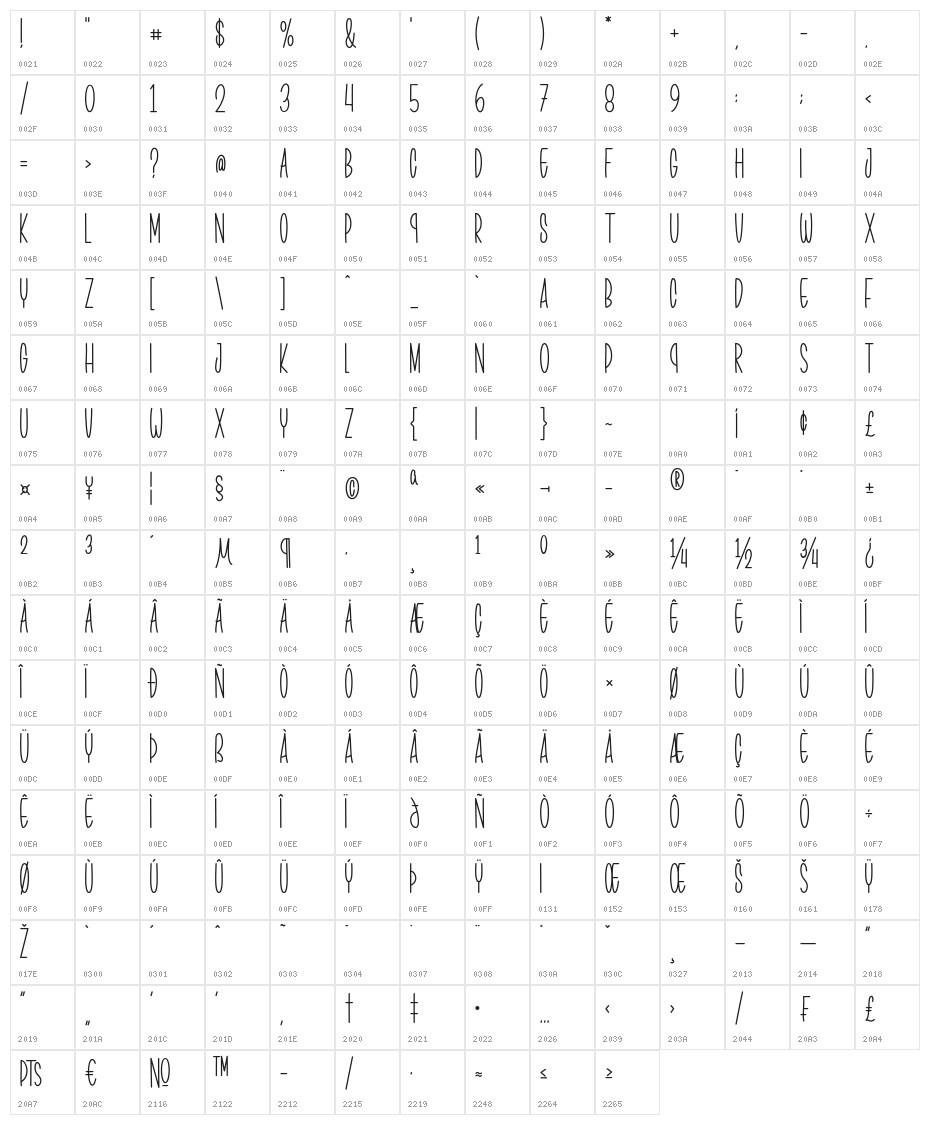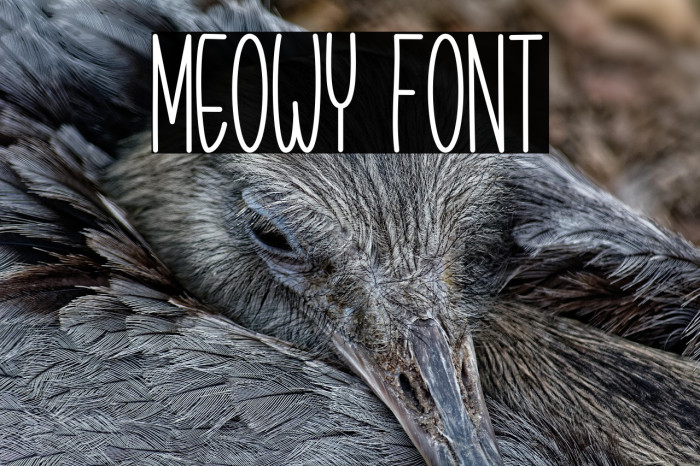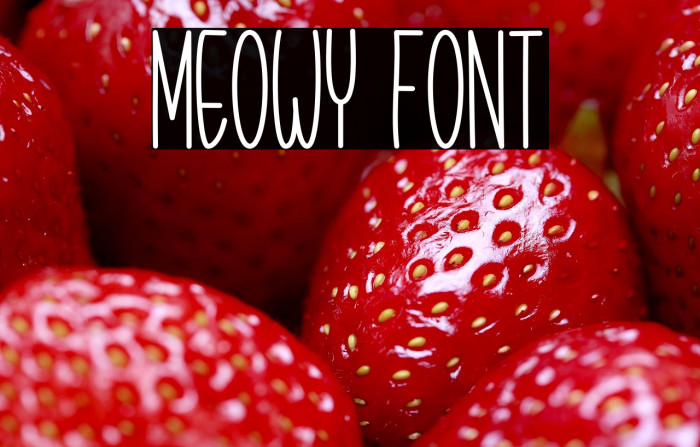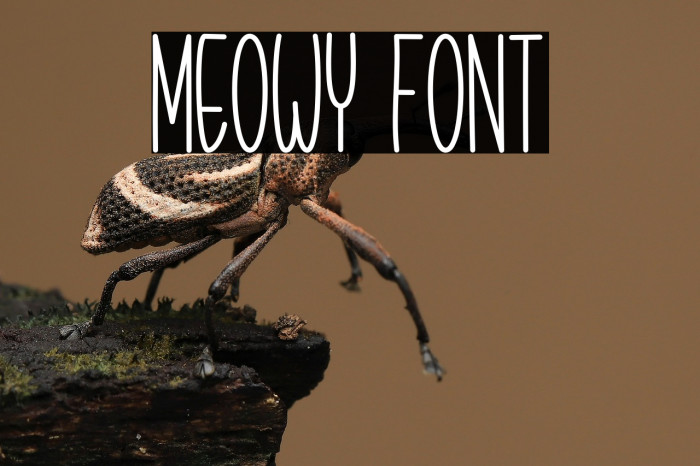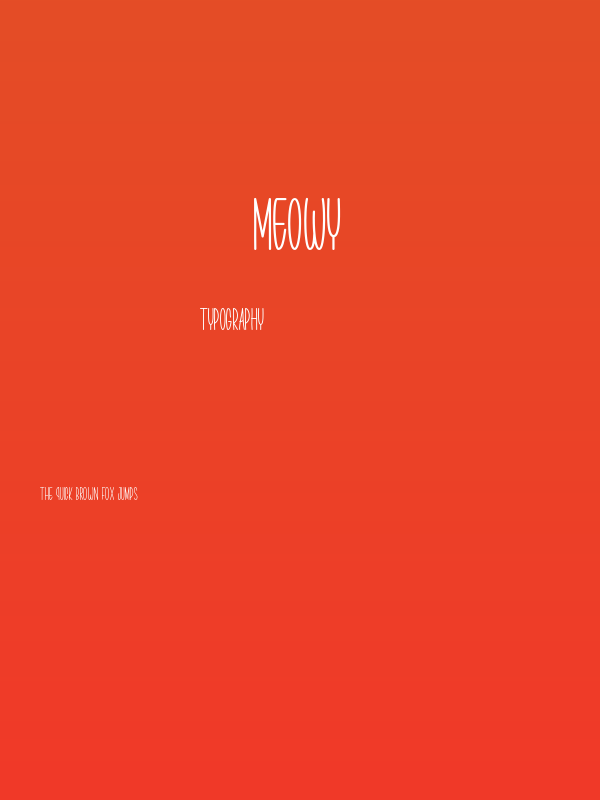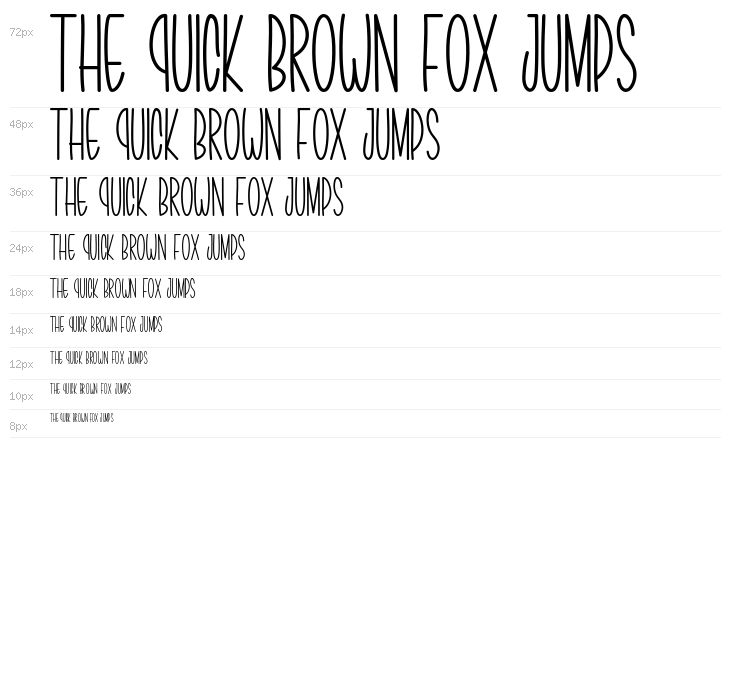
Meowy Font
This font features a playful and whimsical design with tall, narrow letters that have a hand-drawn appearance. The strokes are consistent in width, giving it a uniform look, while the slight irregularities in the lines add a touch of personality and charm. The uppercase and lowercase letters maintain a cohesive style, with rounded edges and a slightly elongated form. The numerals and special characters follow the same design principles, ensuring a harmonious overall appearance. This font is perfect for projects that require a fun and approachable aesthetic.
| Proposed Projects | Ideal for children's books, playful branding, greeting cards, and creative posters. |